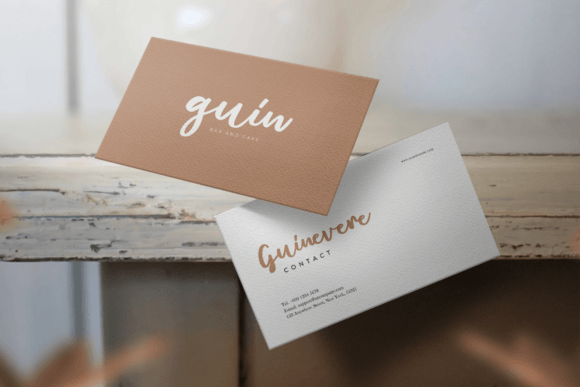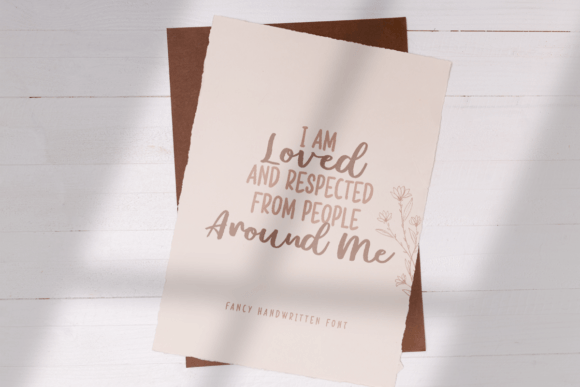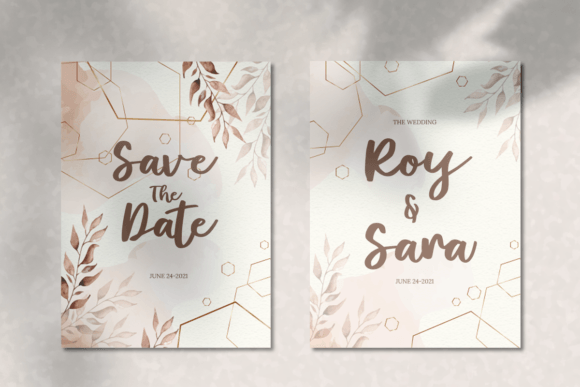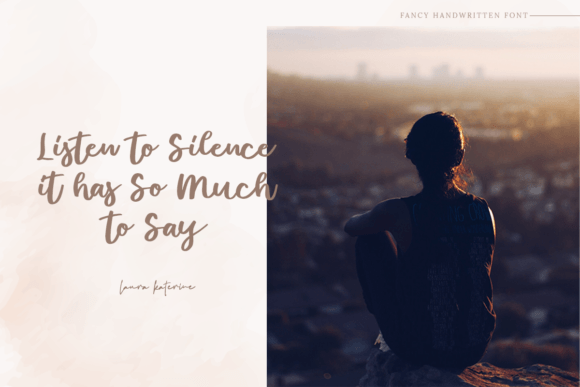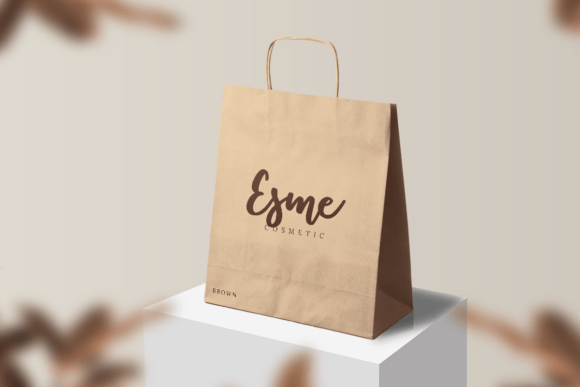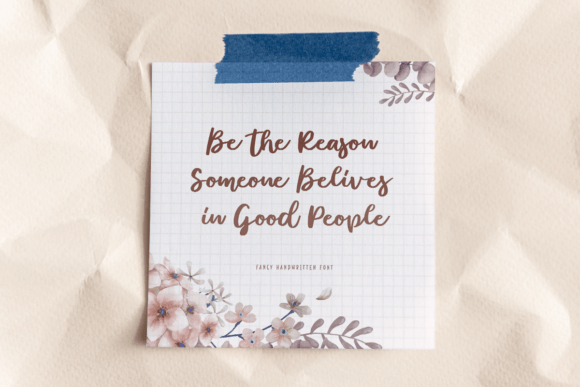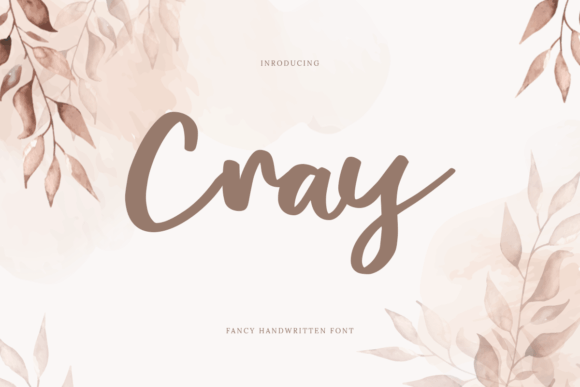
Cray Font: Elevate Your Designs with a Modern Fancy Handwritten Font
Are you tired of using the same old fonts for your design projects? Look no further! Introducing Cray Font, a modern fancy handwritten font that is sure to take your designs to the next level. With its nice and modern style, this font is perfect for creating professional logos, product designs, merchandise, and so much more.
What Makes Cray Font Special?
Cray Font is specially crafted to provide a unique and professional touch to your designs. Its modern style is both cute and cheerful, making it perfect for a wide range of projects. Whether you’re a designer, crafty DIY enthusiast, or simply someone who loves to create, Cray Font is the perfect addition to your font collection.
Key Features of Cray Font
So, what can you expect from Cray Font? Here are some of its key features:
• Complete Character Set: The font includes all characters from A to Z, numbers, and punctuation marks, giving you everything you need to create professional-looking designs.
Use Cray Font for a Wide Range of Projects
Cray Font is versatile and can be used for a wide range of projects, including:
• Logo Design: Create professional logos for your business or brand with Cray Font.
• Product Design: Use Cray Font to create eye-catching product designs that stand out from the crowd.
• Merchandise: Design beautiful merchandise, such as t-shirts, mugs, and more, with Cray Font.
• Stationery: Add a touch of elegance to your stationery designs with Cray Font.
Why Choose Cray Font?
So, why should you choose Cray Font for your design projects? Here are a few reasons:
• Unique and Modern Style: Cray Font has a unique and modern style that will set your designs apart from the rest.
• Professional Results: With Cray Font, you can achieve professional-looking results without spending hours designing from scratch.
Get Creative with Cray Font
Cray Font is the perfect tool for designers and crafters who want to add a touch of elegance and sophistication to their designs. With its modern style and ease of use, you can create beautiful designs that are sure to impress. So why wait? Get Cray Font today and start creating stunning designs that will take your projects to the next level!
In conclusion, Cray Font is a modern fancy handwritten font that is perfect for designers and crafters who want to create professional-looking designs. With its unique style, ease of use, and cross-platform compatibility, Cray Font is a must-have font for any design project. So, go ahead and get creative with Cray Font – your designs will thank you!